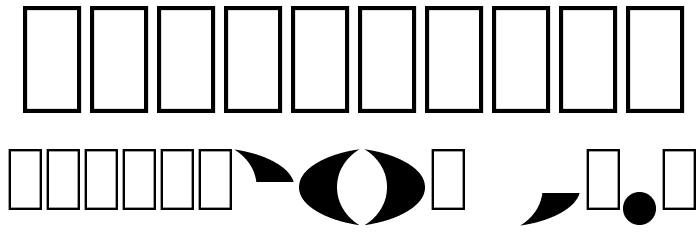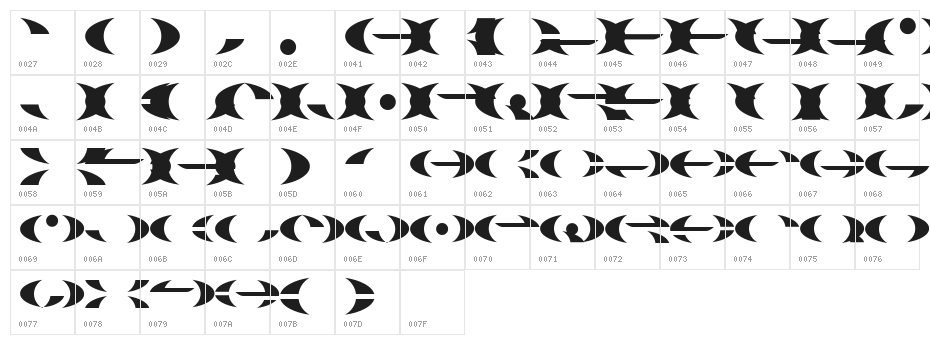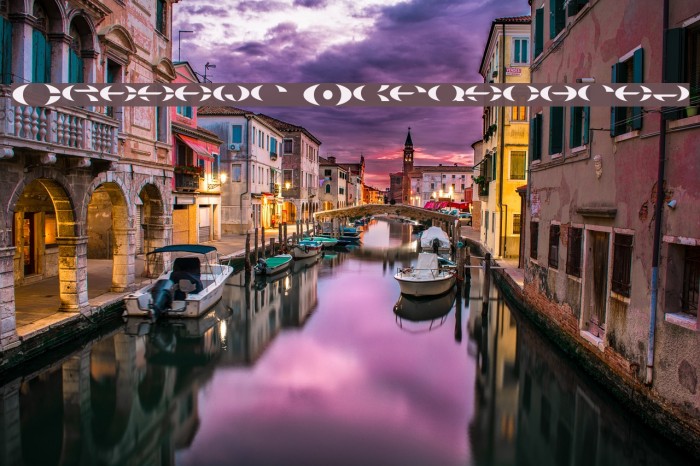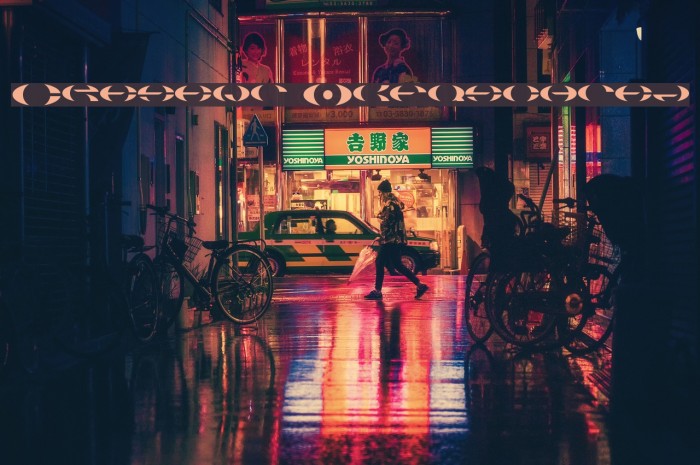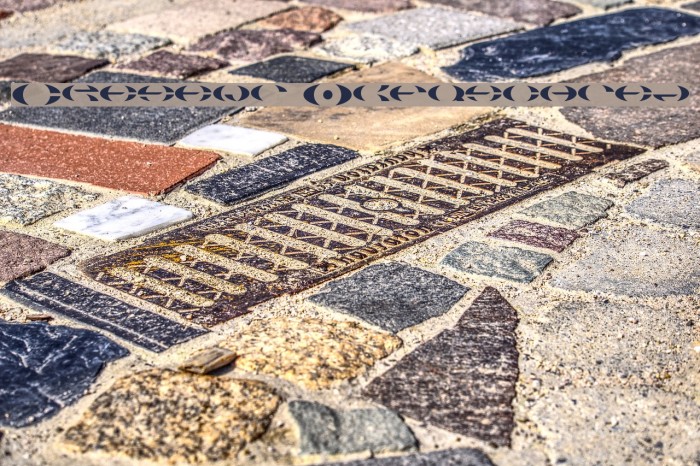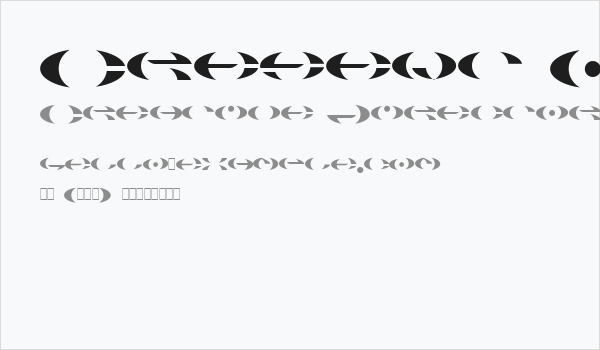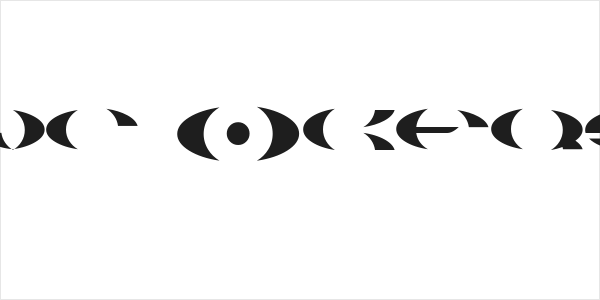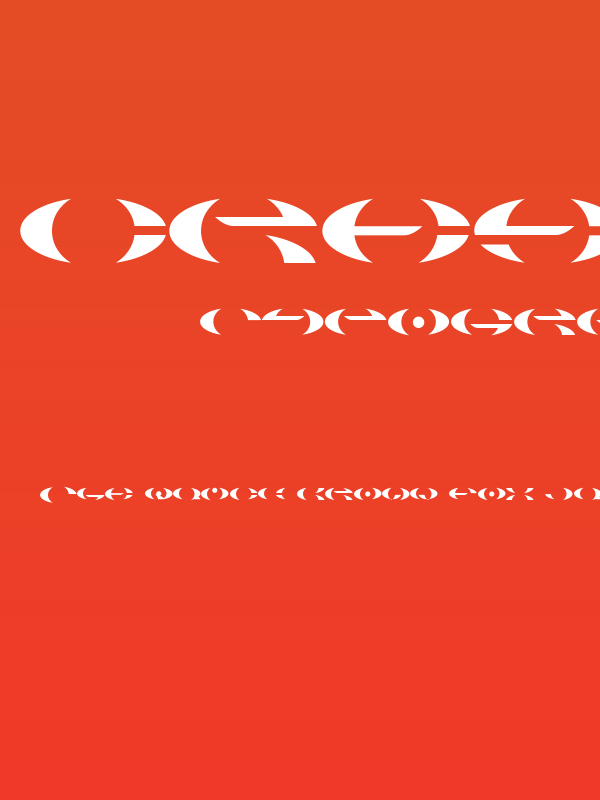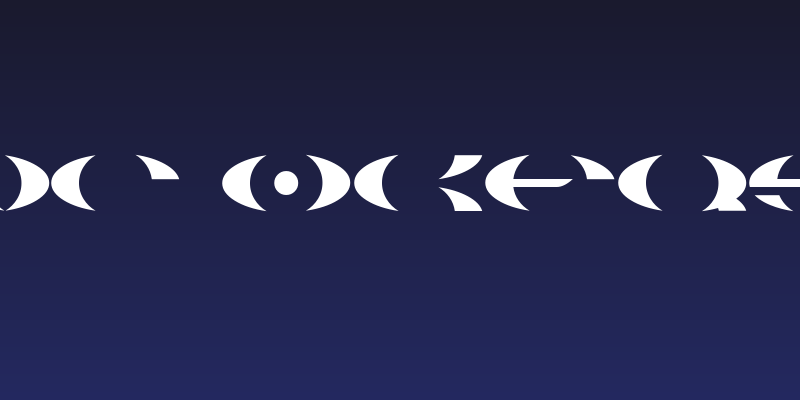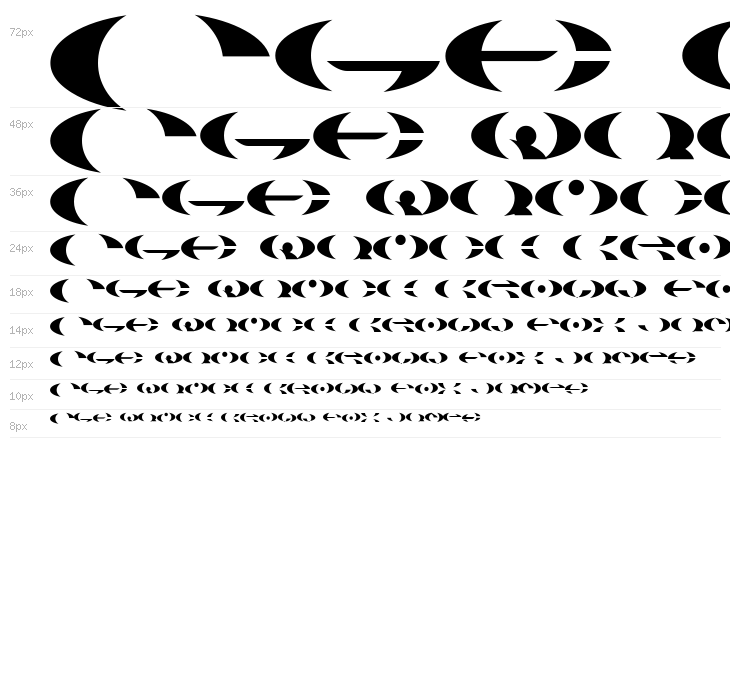
Cresent Obfuscated Font
Cresent Obfuscated Description
This design features a highly abstract and decorative style, characterized by crescent and circular shapes that create a sense of mystery and intrigue. The characters are not traditional alphanumeric symbols but rather artistic representations that suggest a secret code or language. The use of bold, solid black shapes gives the design a strong visual impact, while the symmetrical and repetitive patterns add a rhythmic quality. This style is reminiscent of ancient scripts or futuristic symbols, making it suitable for projects that require a unique and enigmatic aesthetic.
| Use Case | Logos, Artistic projects, Decorative elements |
| Proposed Projects | Ideal for use in artistic projects, branding for futuristic or mystical themes, and decorative elements in graphic design. |